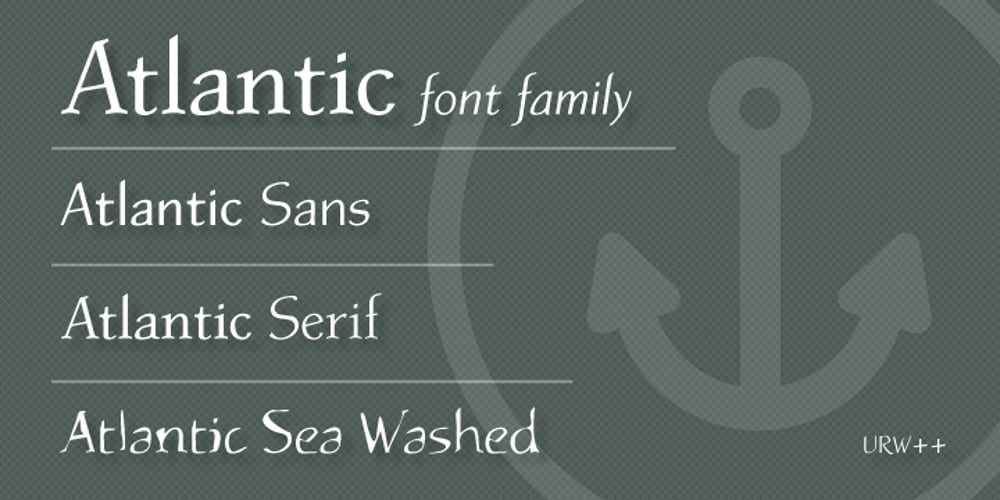
Atlantic Sea Washed Font Family was designed by Ekke Wolf and published by URW Type Foundry. Atlantic Sea Washed contains 1 styles and family package options. The original plan for Atlantic was to design a typeface in the Venetian syle of the Renaissance, with handwriting character and large ascenders. There is a wave-rolling unevenness in both the x- and cap-height caused by the strong ductus pointing to the upper right, together with heavily curved serifs, resulting in a very lively image of text on a page. Atlantic – its name reflects the ocean, ships, carriers and loads, tourism and so on. These are the themes Atlantic is best suited for. The extended family includes a serif, a sans, and a special variant – a SeaWashed. Atlantic was designed for the URW++ SelecType collection.